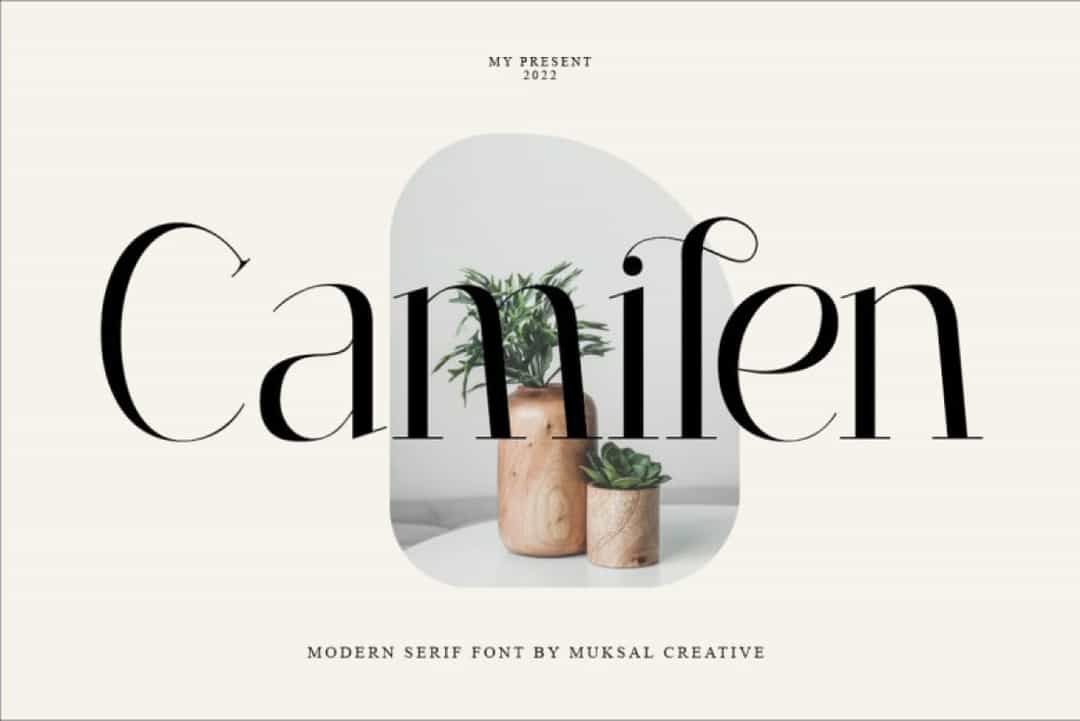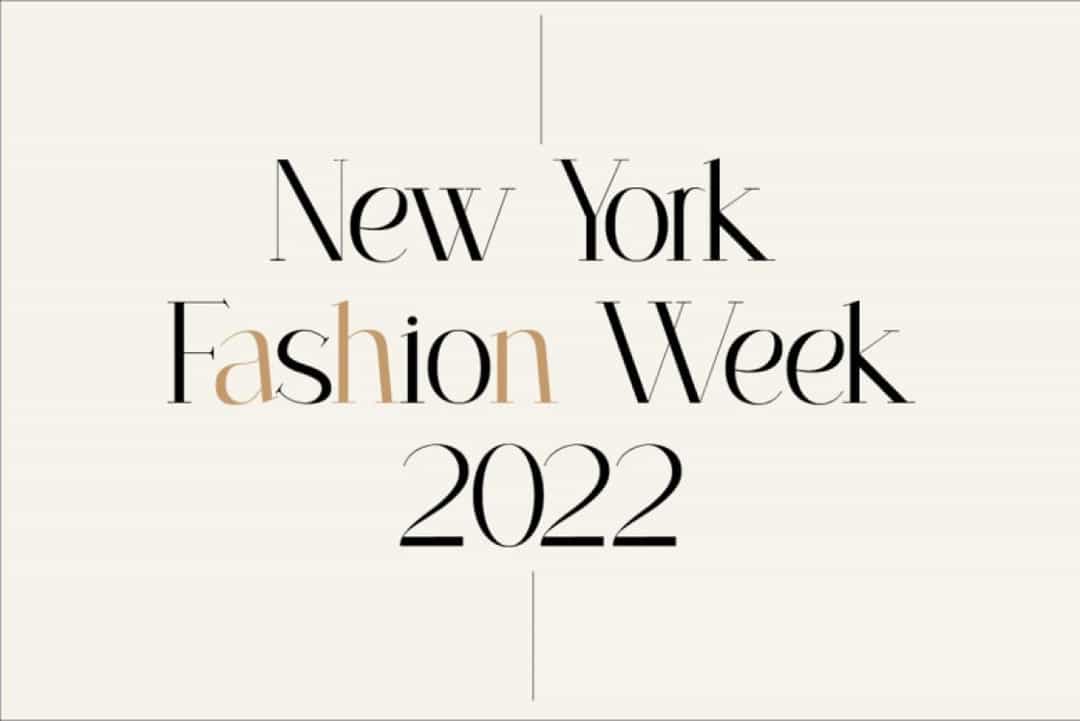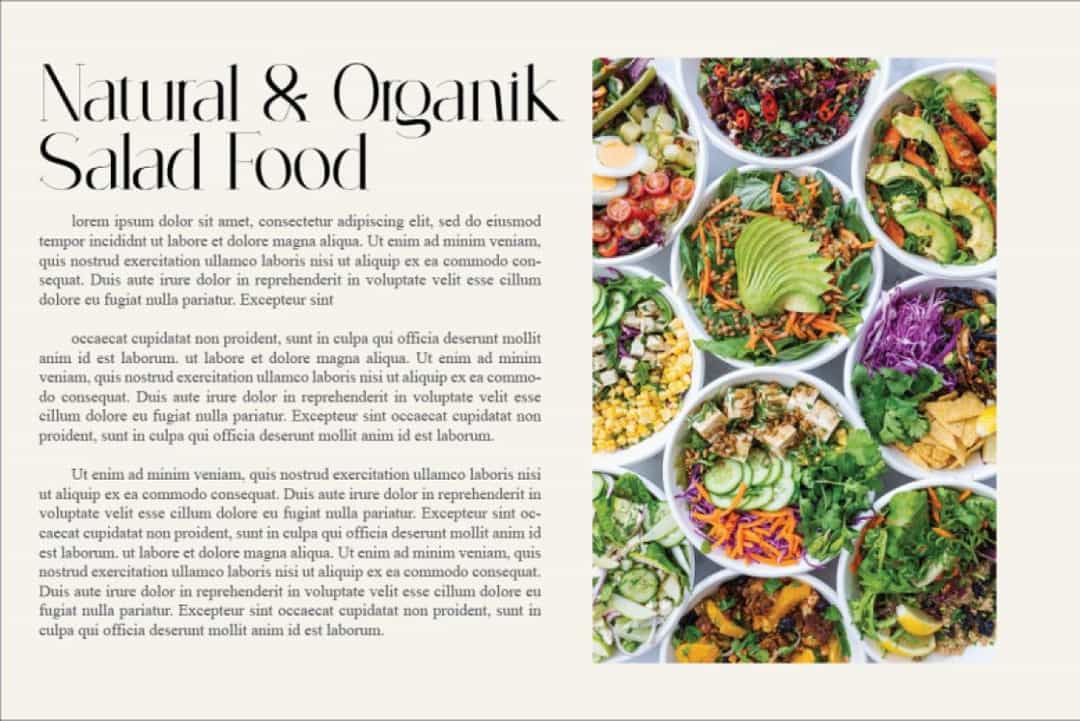
Camilen can be described as an elegant and modern Serif font with an alluring Ligature designed by Muksal Creative. As it’s flexible enough to be used both small and large sizes, Camilen makes for the ideal font to use in editorial work such as logo design, clothing branding and packaging for products, magazine headers or just as an eye-catching text overlay for images.